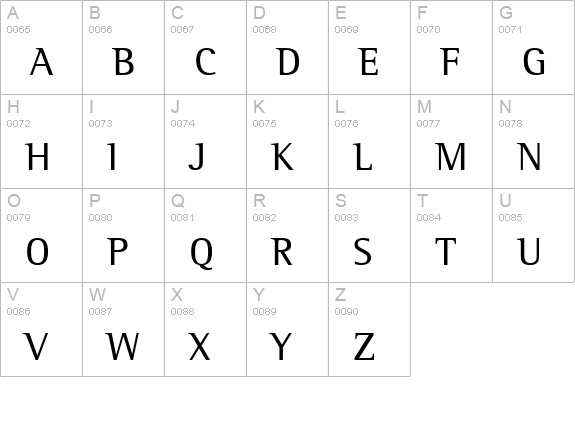
The Libre Semi Serif SSi font is a versatile typeface that strikes the perfect balance between traditional serif and modern sans-serif styles. Its unique blend of classic elegance and contemporary flair makes it ideal for a wide range of design projects, from formal invitations to eye-catching headlines. What sets Libre Semi Serif SSi apart is its subtle playfulness, with just the right amount of personality to make your text stand out without overpowering the overall design. The semi-serifs add a touch of sophistication, while the clean lines and balanced proportions ensure readability and clarity in any context. Best of all, Libre Semi Serif SSi is available for free download at FontsMarket.com, making it accessible to designers and creatives looking for a high-quality typeface without breaking the bank. Whether you're working on a print project or a digital design, this font is sure to elevate your work and leave a lasting impression on your audience.